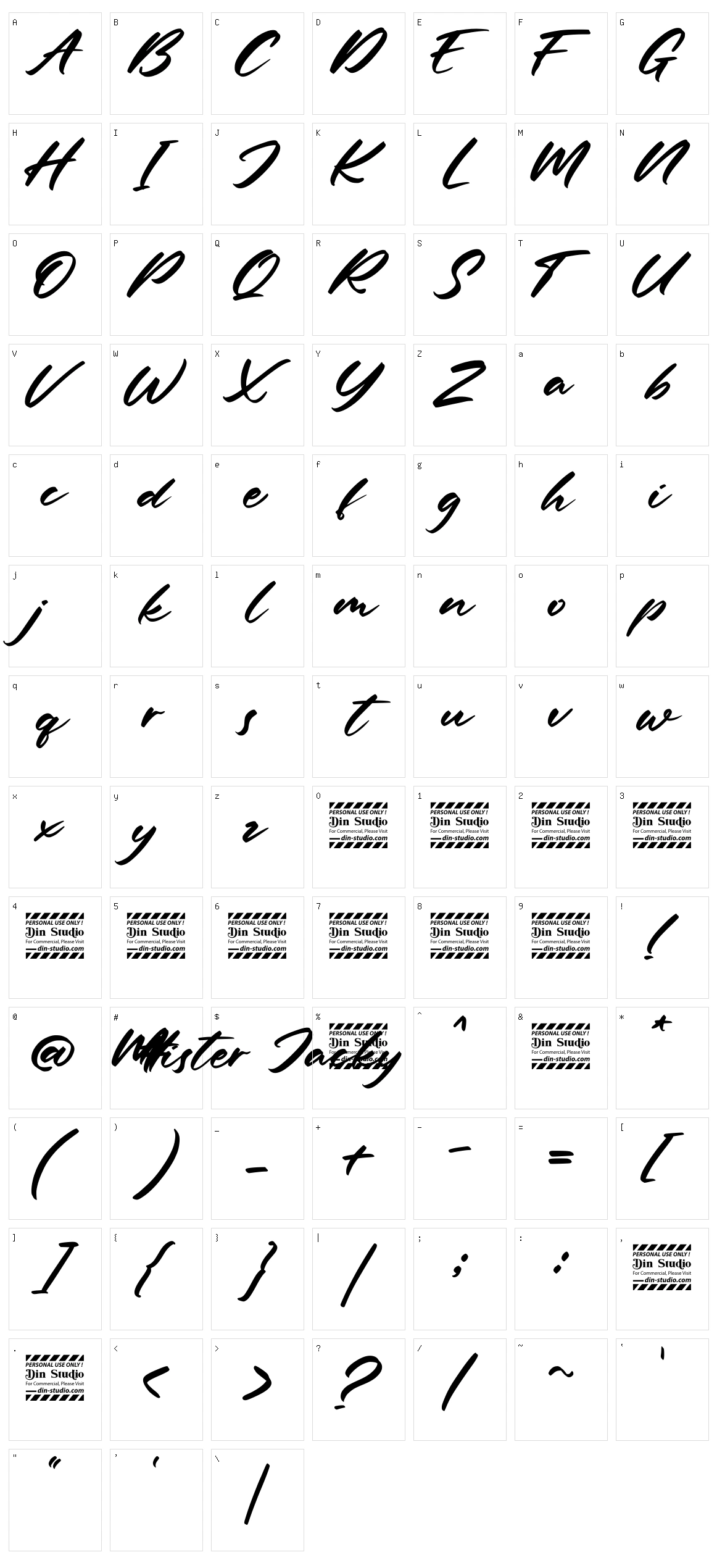
The free font Mister Jacky is carefully designed by Din Studio, showcasing a thoughtful balance of creativity and usability and falls under the Script font style. When you download the ZIP file, it contains only 761.31 KB of font files, making it lightweight and quick to download. Please review the license details below to understand permitted usage and distribution rights. If license information is not available, we recommend using this font for personal projects only or contacting the author directly for commercial usage permissions.